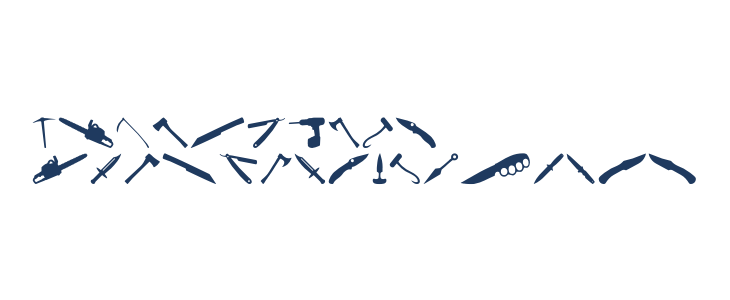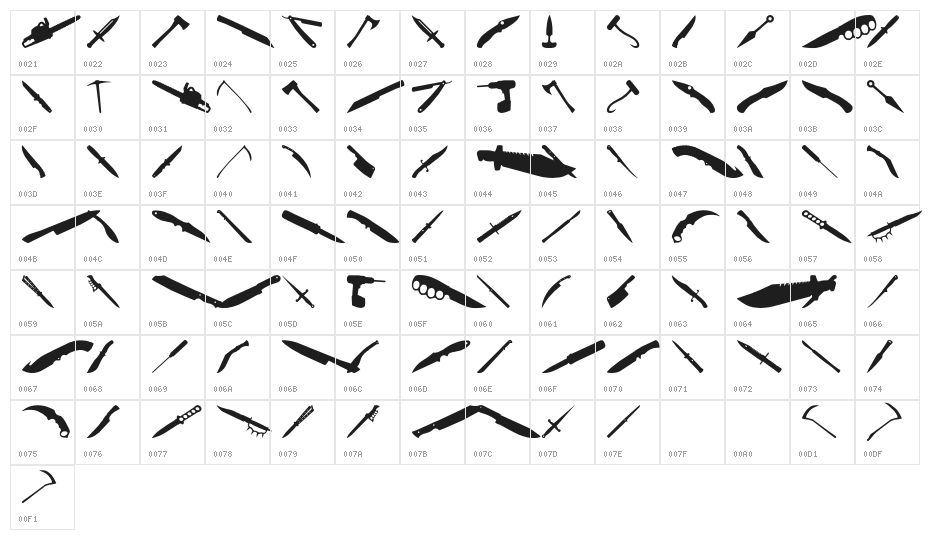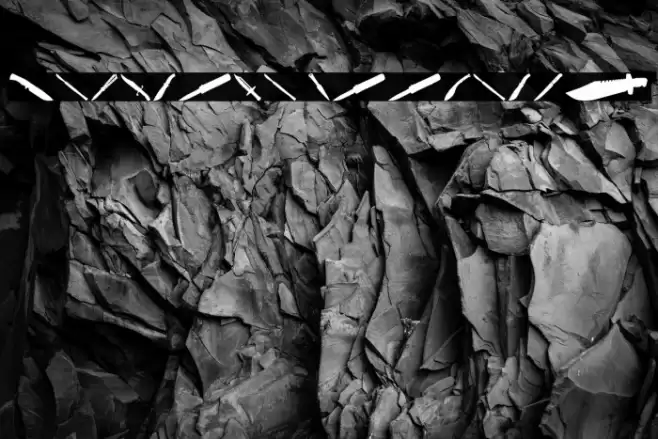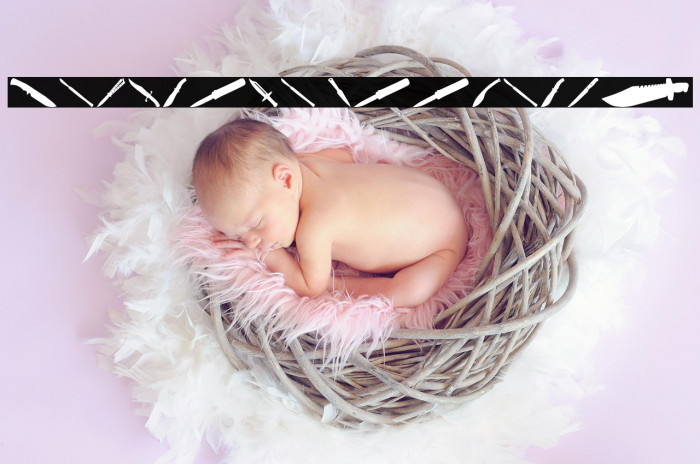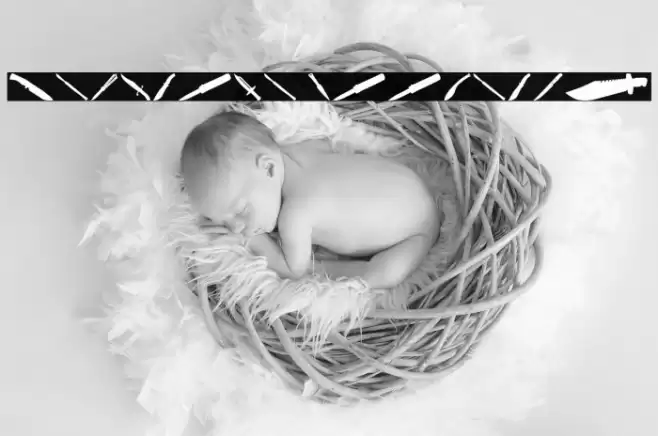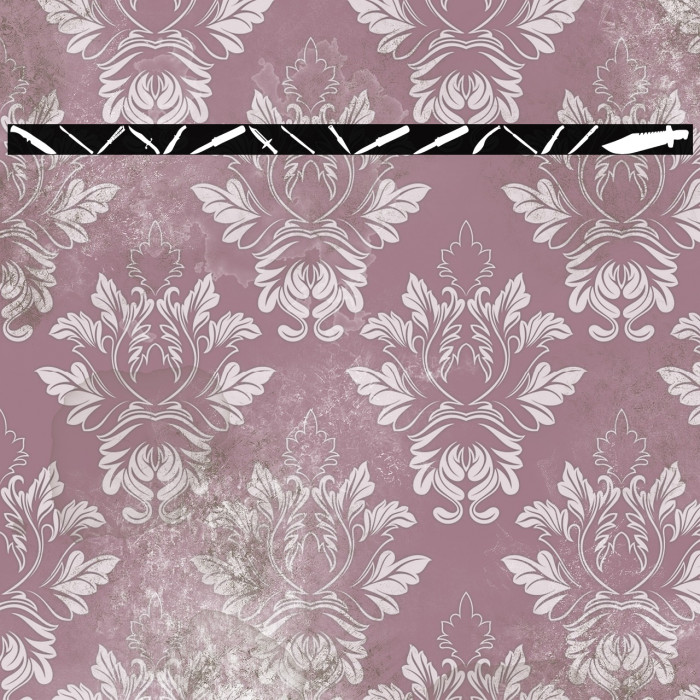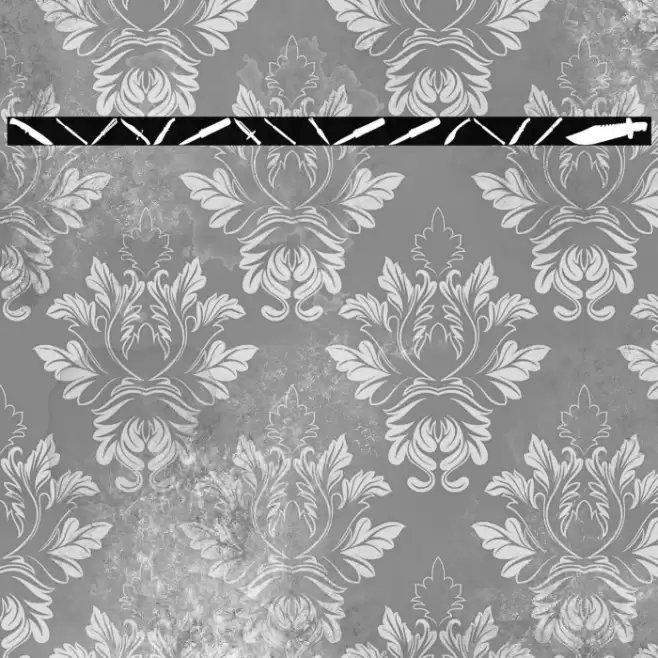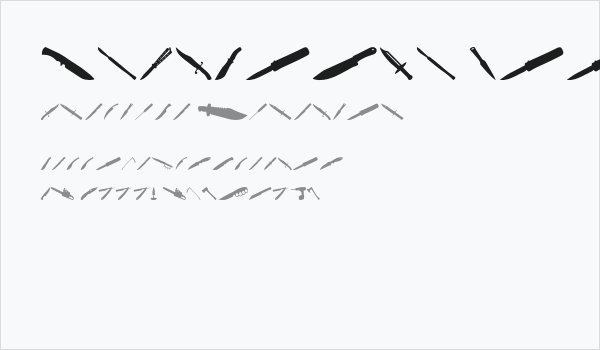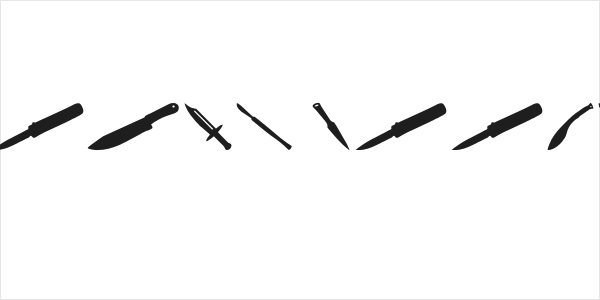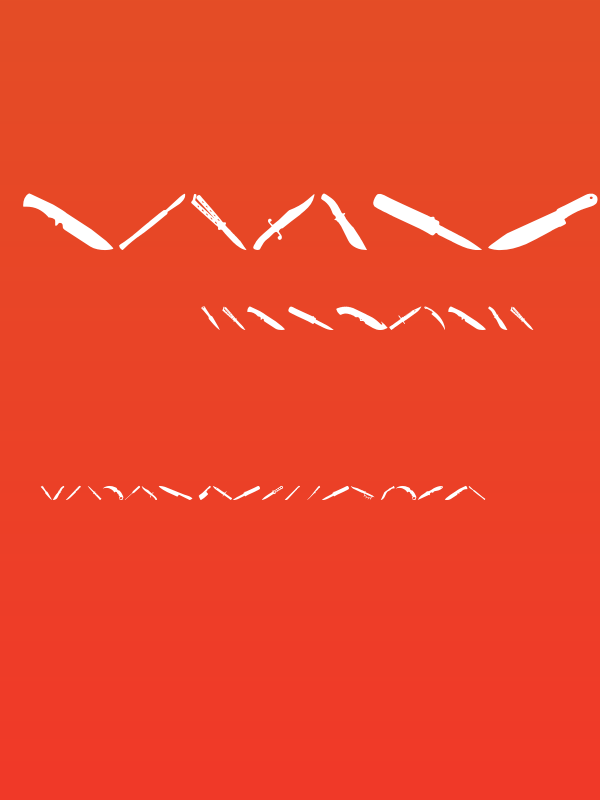
Psycho's Toolshed Font
Psycho's Toolshed Description
A highly decorative display font where each character is formed from the silhouette of various weapons and tools, such as knives, axes, chainsaws, and other sharp or dangerous implements. The glyphs are bold, black, and have irregular shapes due to the unique outlines of each object, making legibility secondary to visual impact.
Overall StyleDecorative, Horror, Edgy
Use CaseHeadlines, Posters, Logos, Themed Graphics
Proposed ProjectsHorror movie posters, Halloween event flyers, themed escape room branding, video game titles, or any project needing a dark, edgy, or menacing aesthetic.